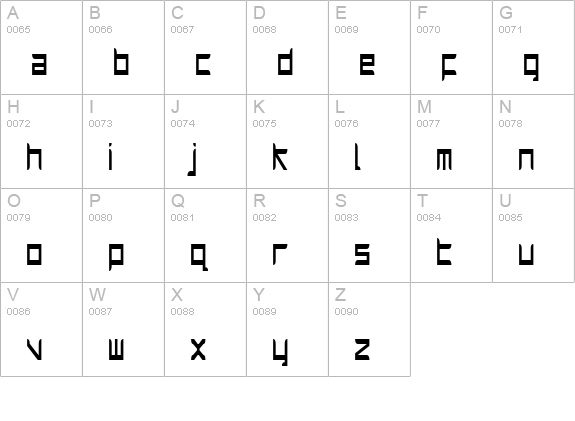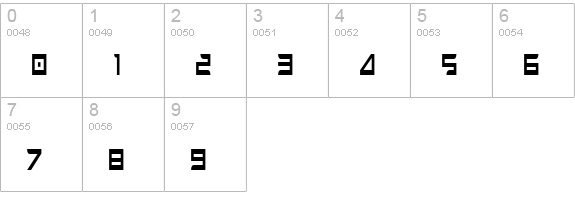
Harrier Condensed is a distinctive, condensed-width variant in the Harrier typeface family \xE2\x80\x94 well suited to design and typography projects.
Introducing Harrier Condensed, a sleek and modern typeface that effortlessly combines elegance with practicality. Designed with precision and attention to detail, this font is perfect for those seeking a versatile option that can be used across a wide range of projects. Harrier Condensed is characterized by its clean lines and compact design, making it ideal for situations where space is limited or a condensed typography is desired. Its condensed nature allows for more text to be displayed in a smaller area without compromising legibility or readability. With its balanced proportions and refined letterforms, Harrier Condensed brings a sense of sophistication to any design. It exudes a sense of professionalism and is well-suited for corporate branding, editorial layouts, signage, and more. Its versatility extends to both print and digital media, ensuring that your message is delivered with utmost clarity and impact. One of the most remarkable aspects of Harrier Condensed is that it is freely available to download at FontsMarket.com. This means that you can enjoy all the benefits of this exceptional font without any cost attached. Whether you are a professional designer, a student, or someone with a passion for typography, this font opens up endless possibilities for your creative endeavors. So, if you are searching for a condensed font that combines style, functionality, and affordability, look no further than Harrier Condensed. Download it today from FontsMarket.com and elevate your designs to new heights of excellence.